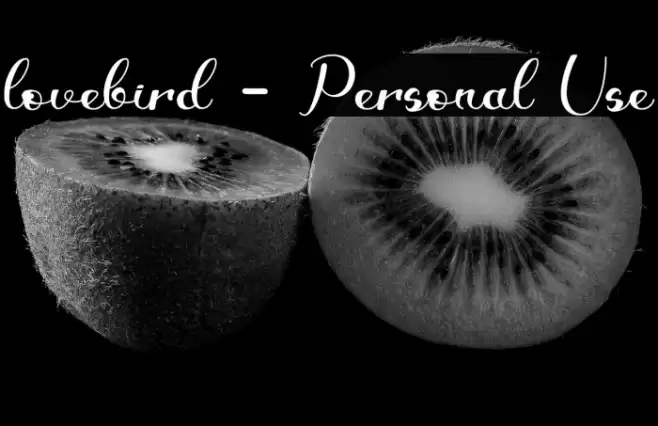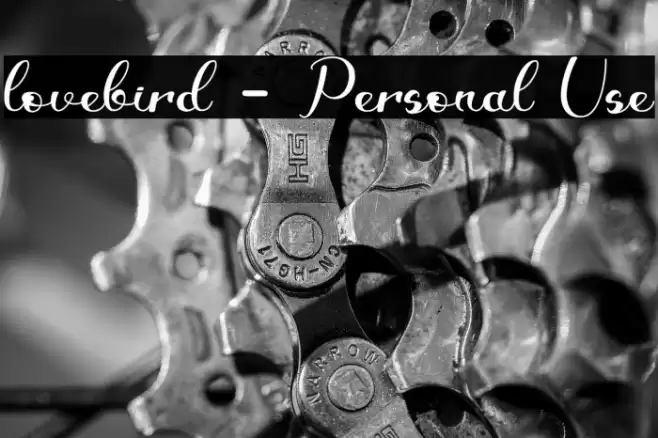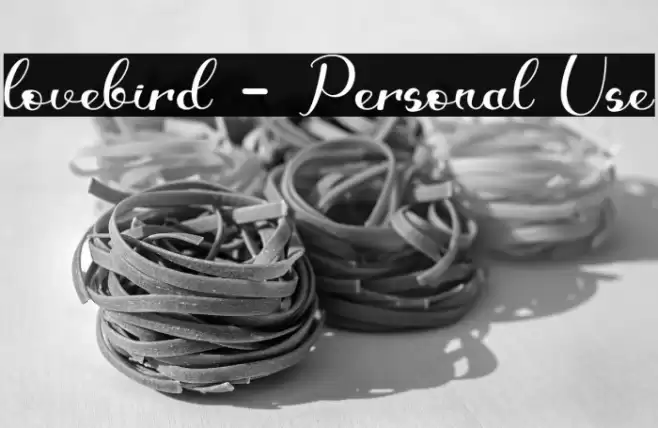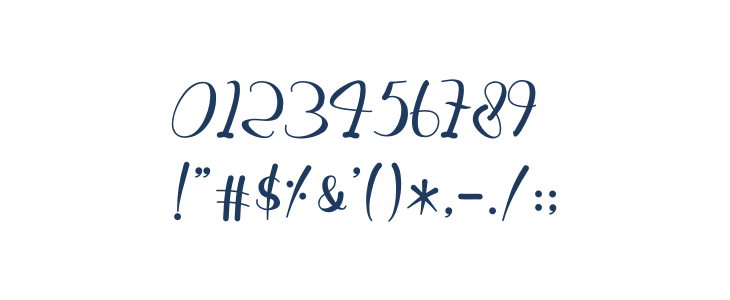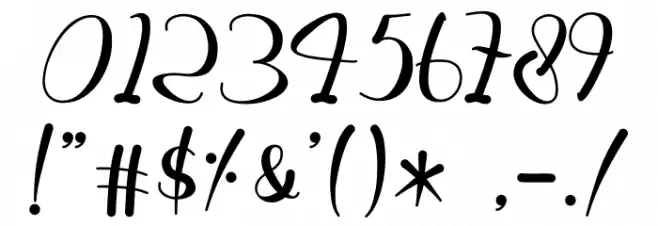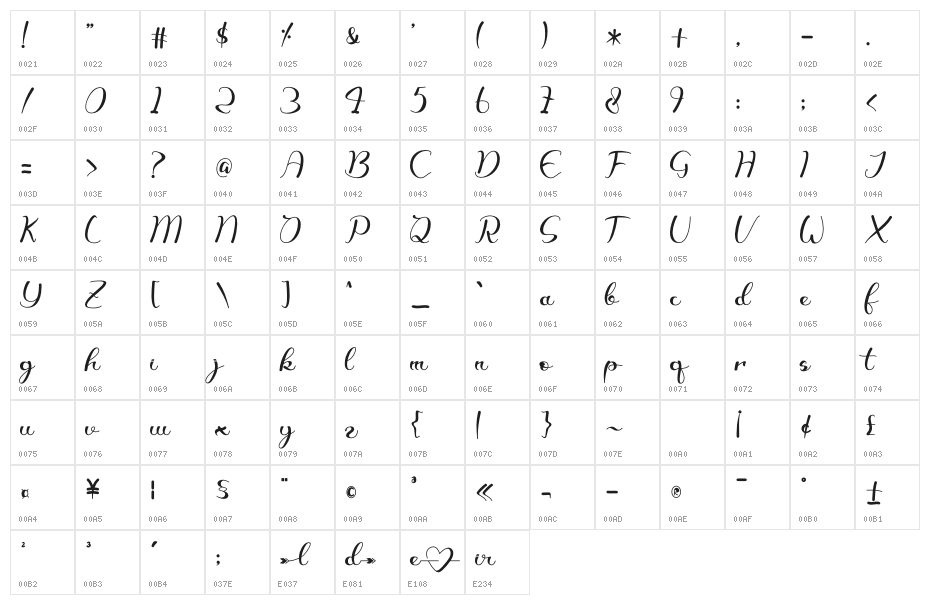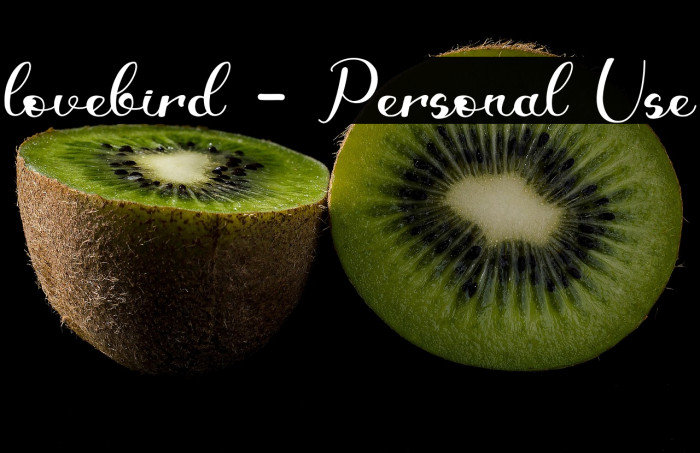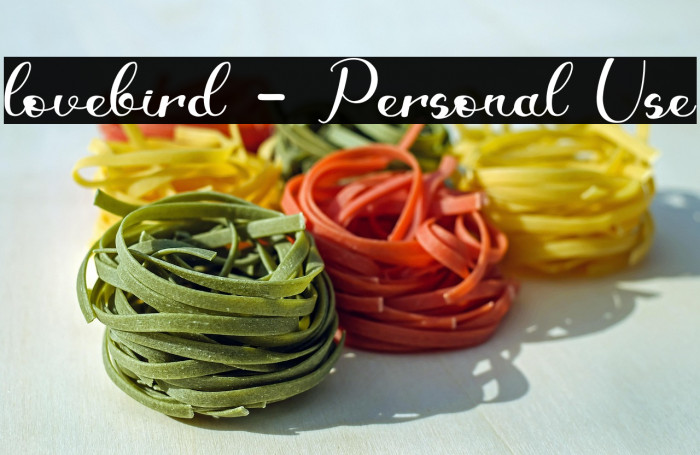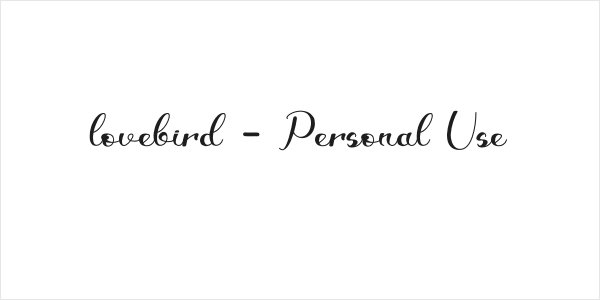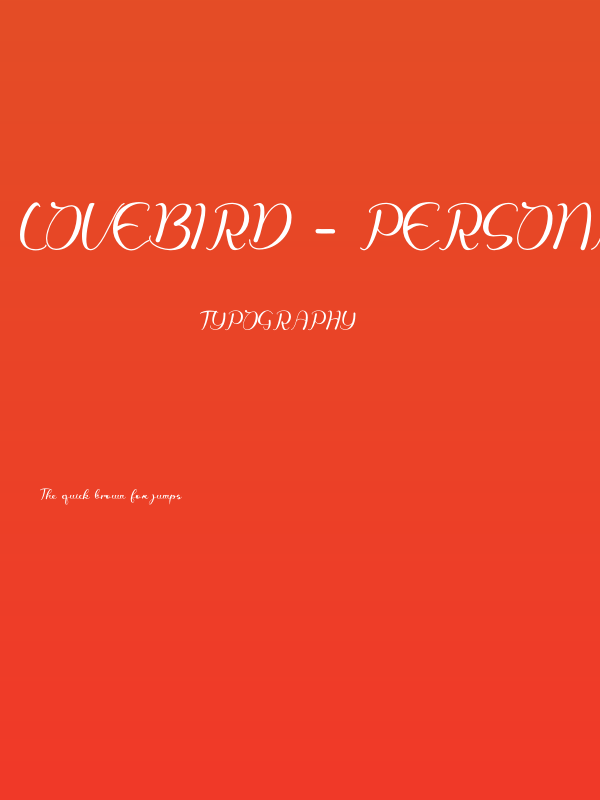
lovebird - Personal Use Font
lovebird - Personal Use Description
This elegant script font features flowing, cursive letters with a graceful and sophisticated appearance. The uppercase characters exhibit a slight slant with smooth, sweeping curves, while the lowercase letters maintain a consistent, fluid style that complements the uppercase set. The numerals are designed with a similar flair, offering a cohesive look across all characters. Special characters are included, maintaining the same elegant style, making this font versatile for various design needs. The overall aesthetic is both romantic and refined, suitable for projects that require a touch of elegance and class.
A graceful and elegant script font with flowing, cursive letters from Uncategorized fonts.
- Proposed Projects: Ideal for wedding invitations, greeting cards, elegant branding, and romantic designs.
- Overall Style: Elegant, Romantic
- Use Case: Headlines, Invitations, Branding